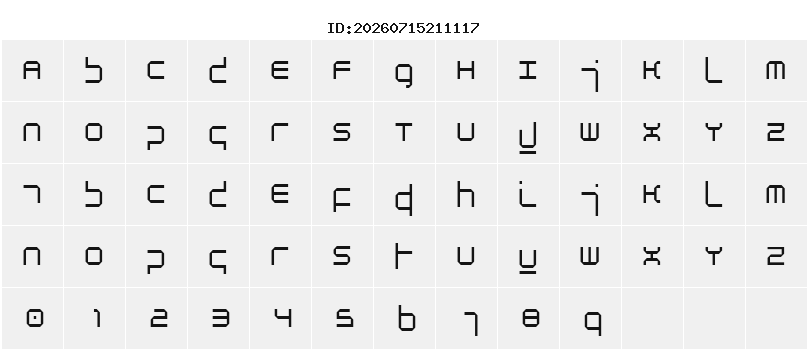
• Font Name: Atmosphere
• Font Style: Light
• Font ID: Macromedia Fontographer 4.1.5 Atmosphere Light
• Full Font Name: Atmosphere Light
• Version: Macromedia Fontographer 4.1.5 5/10/97
• PostScript Name: AtmosphereLight
• Character Count: 109
• Copyright: A typeface design by Jay Vidheecharoen ©1997
Atmosphere.ttf is a modern, elegant sans-serif font designed for ultimate readability and visual harmony. Perfect for branding, headlines, web design, and print materials.